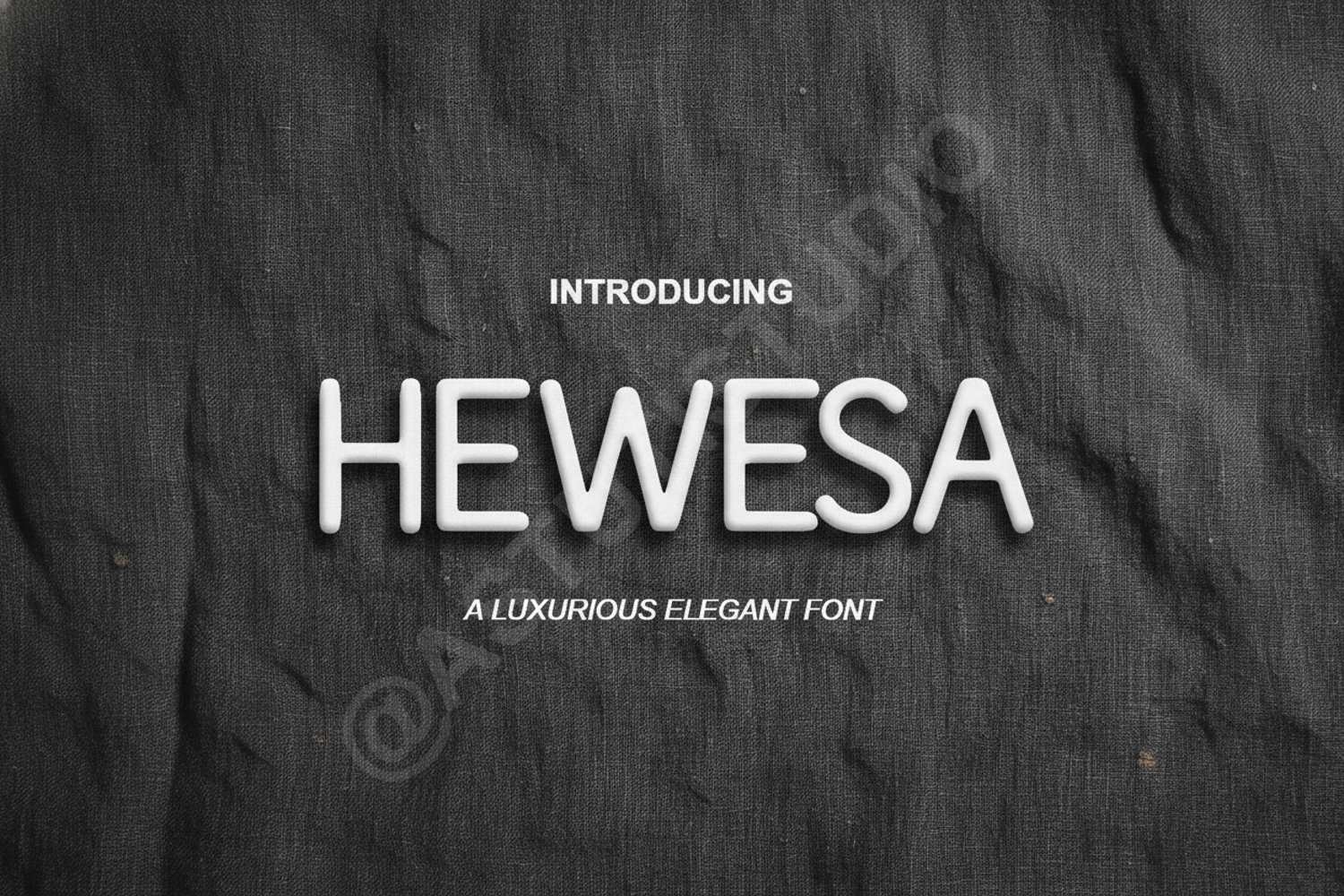
Hewesa - Elegant Modern Serif Font
Hewesa
Hewesa is a premium modern serif font that exudes sophistication and timeless charm. Meticulously designed with balanced proportions and clean lines, this typeface is engineered to bring a touch of luxury to any creative project. Whether you are aiming for a minimalist aesthetic or a bold statement, Hewesa offers the versatility required for high-end design work.
- Full set of uppercase and lowercase letters
- Numerals and punctuation
- Multilingual character support
- Branding and Identity: Create memorable logos and cohesive brand guidelines.
- Editorial Design: Perfect for magazine headers, book covers, and high-fashion layouts.
- Wedding Stationery: Elevate invitations, RSVP cards, and event signage with refined typography.
- Luxury Packaging: Enhance product labels and boxes with a premium feel.
- Digital Marketing: Ideal for social media graphics, website headers, and aesthetic advertisements.